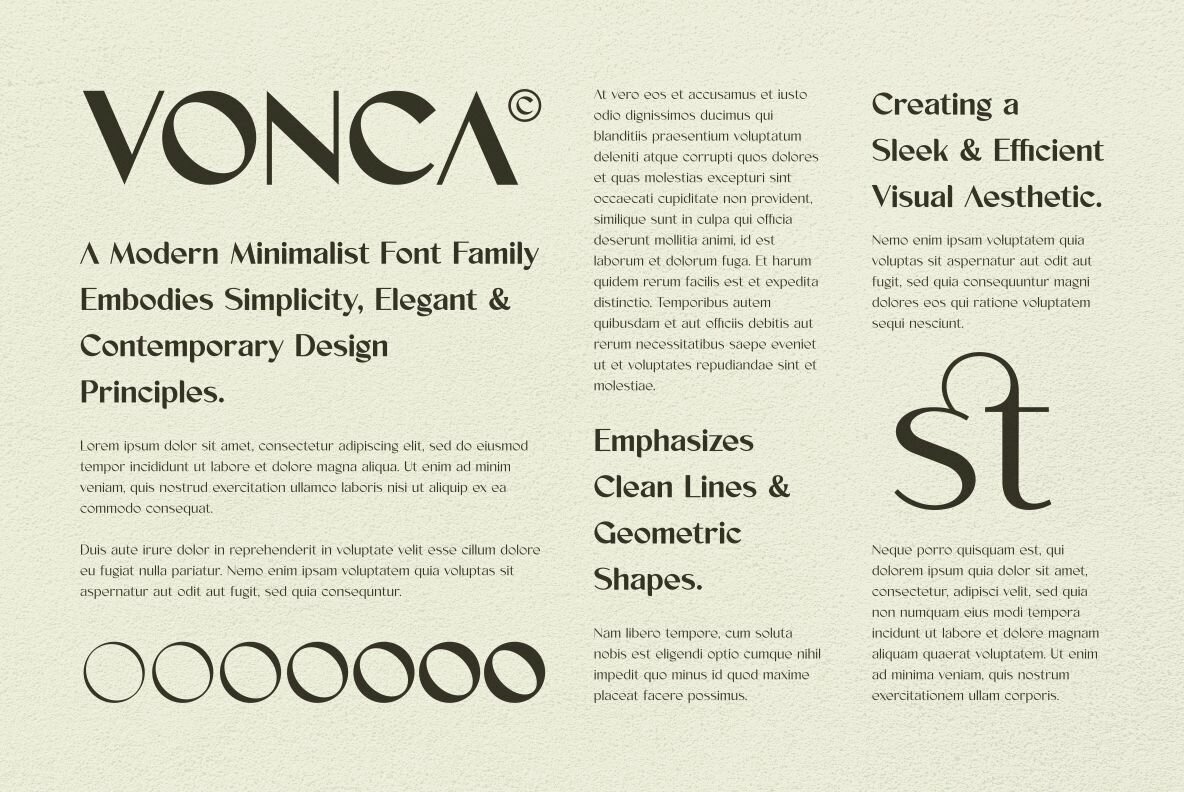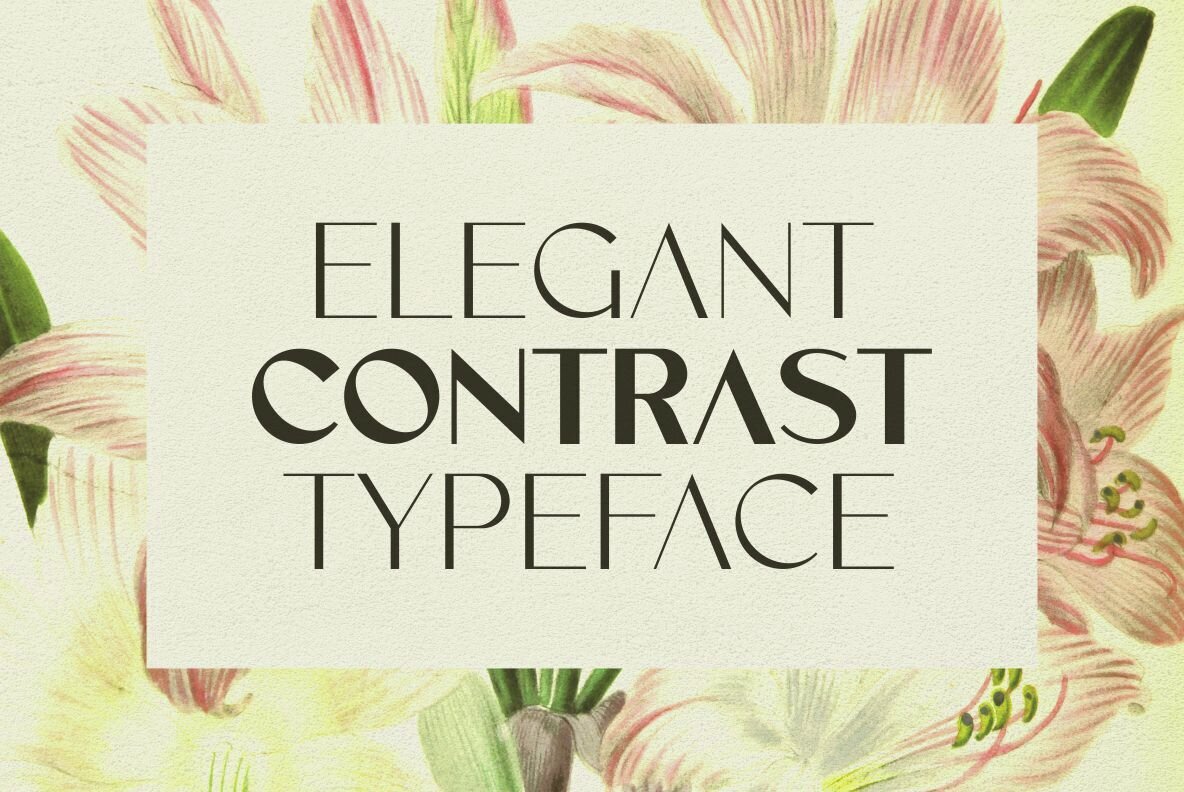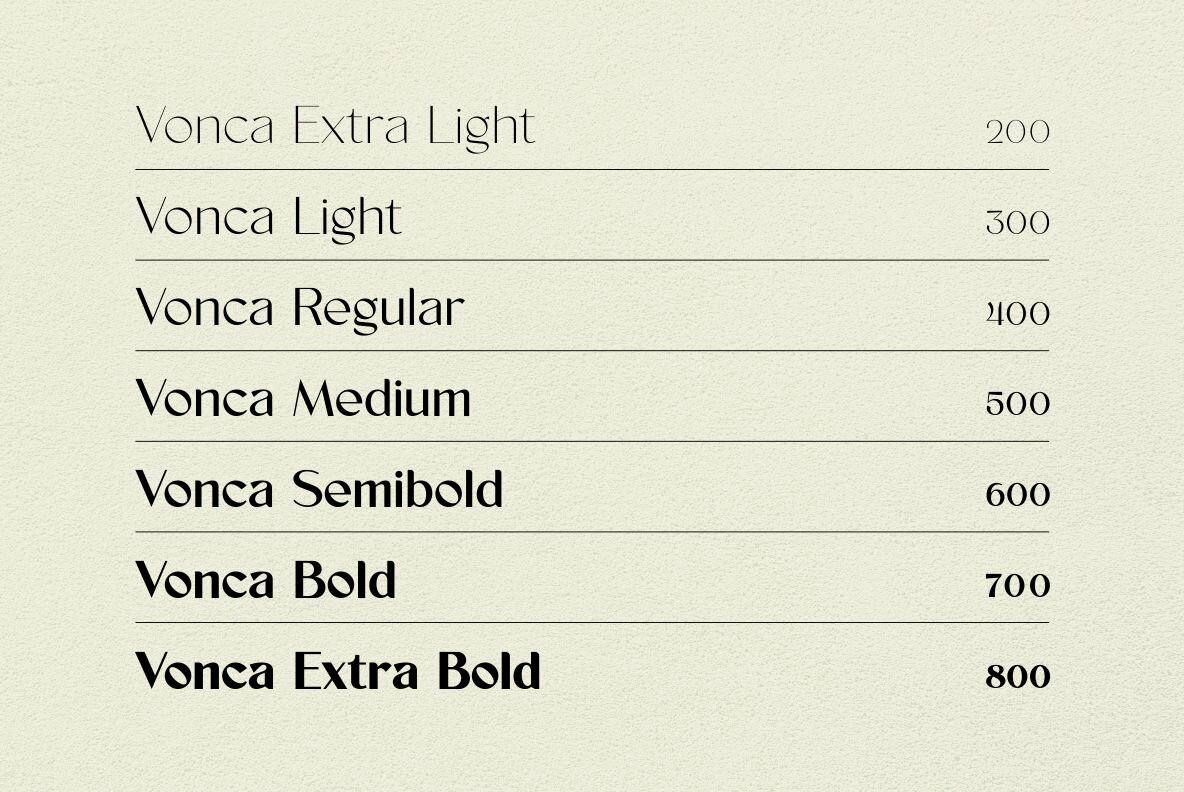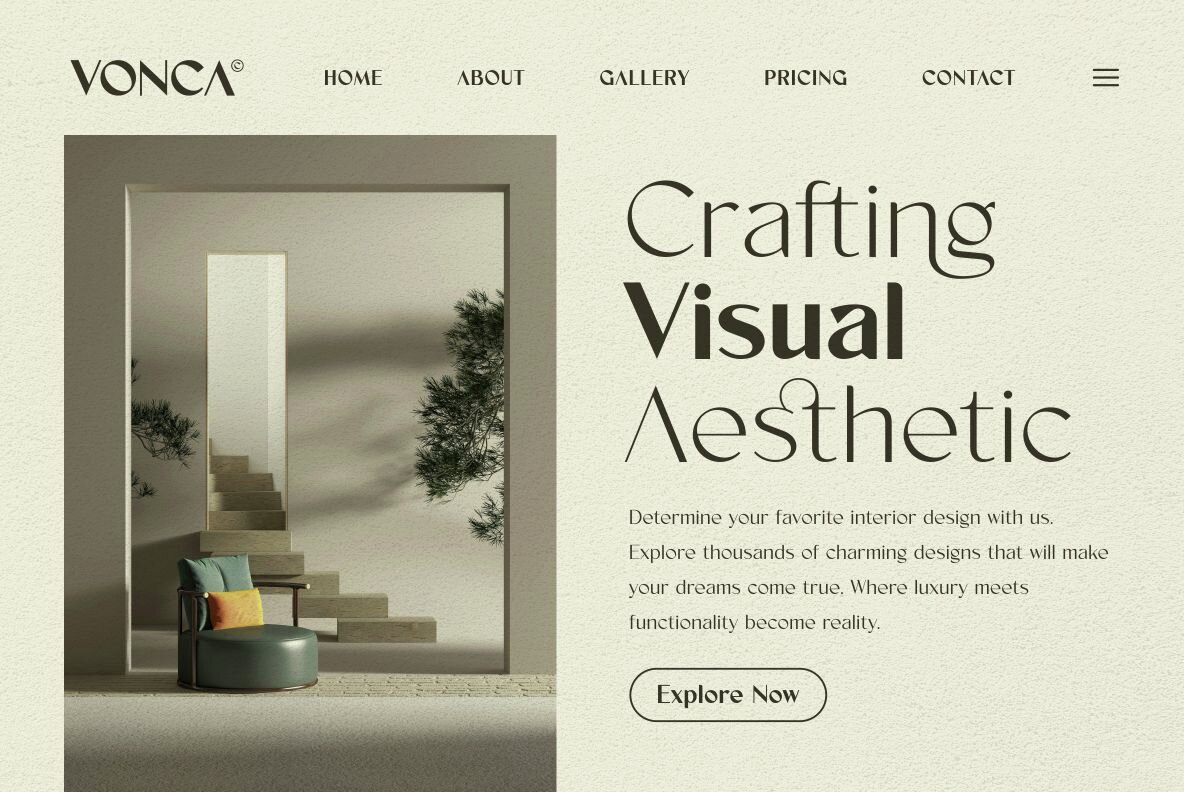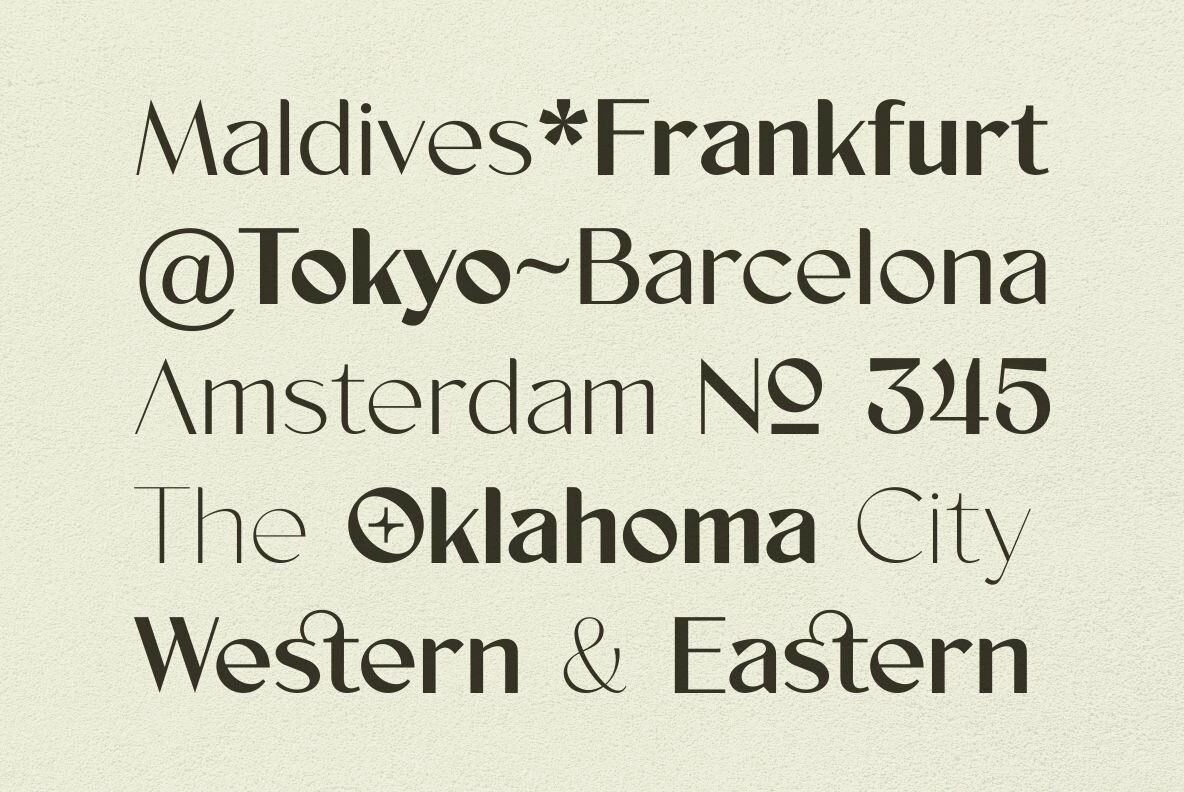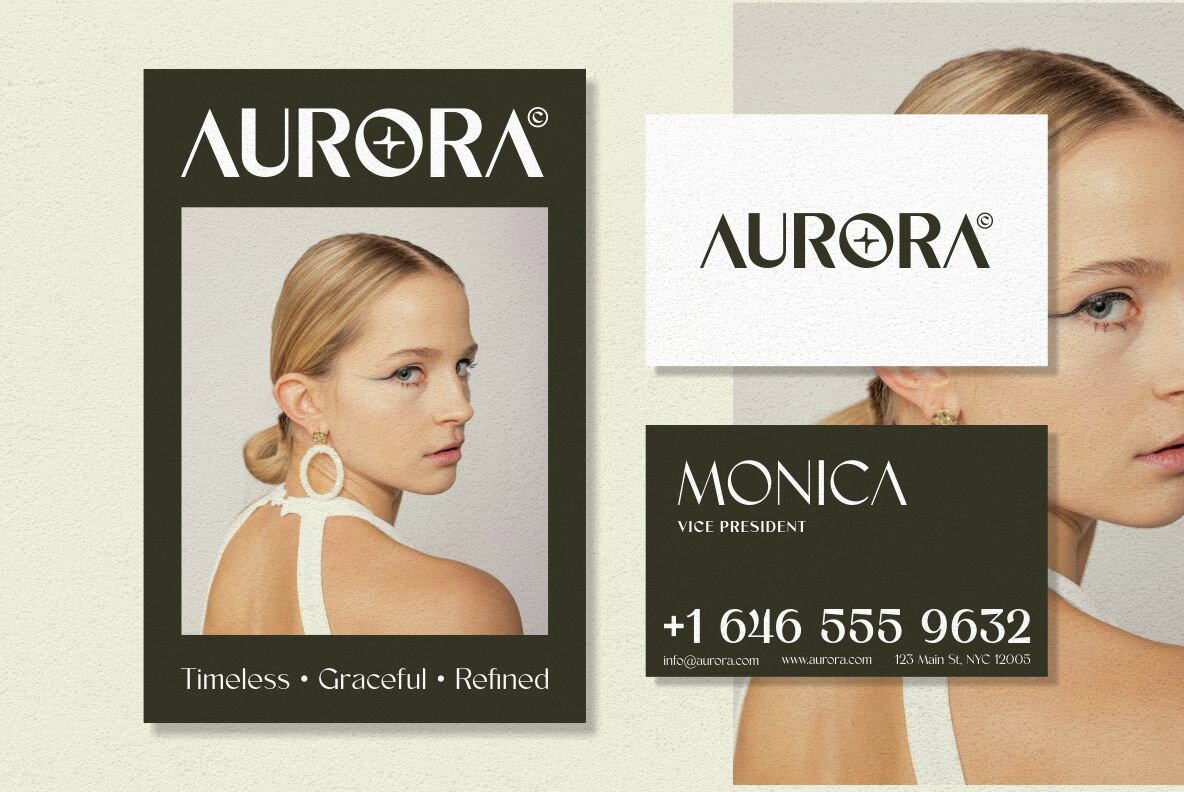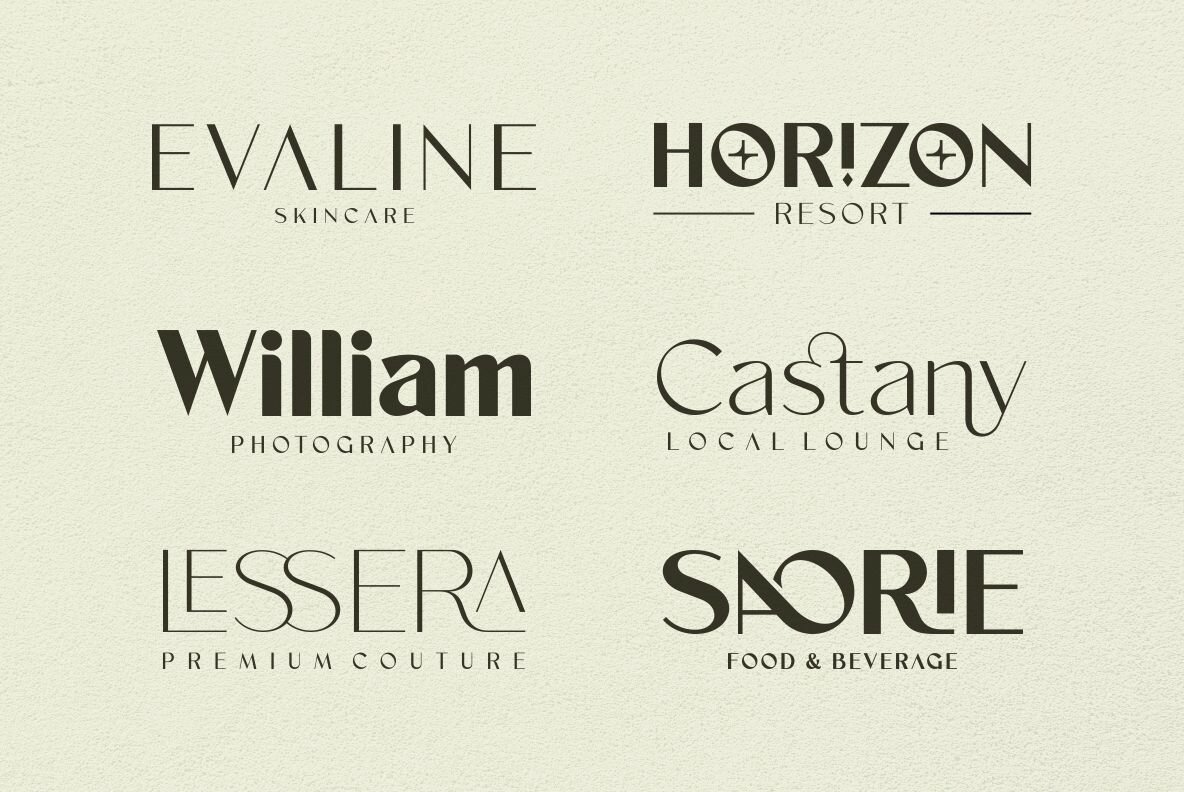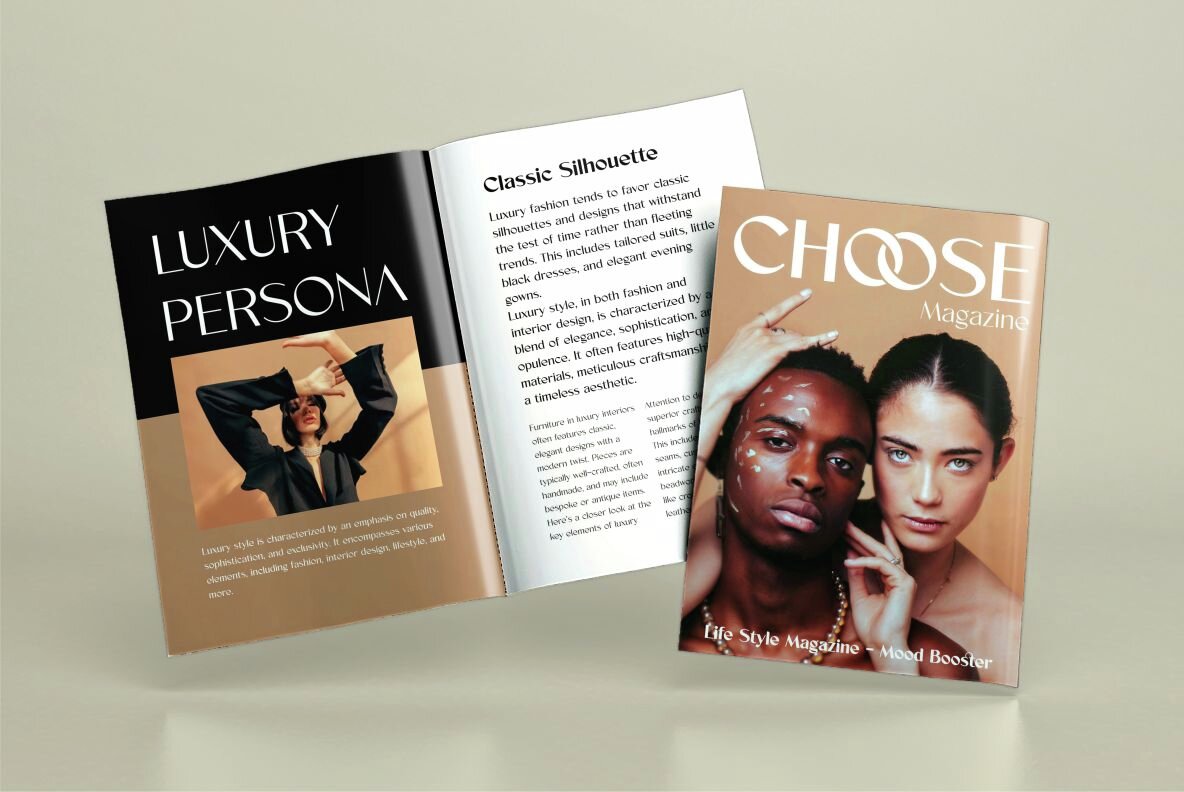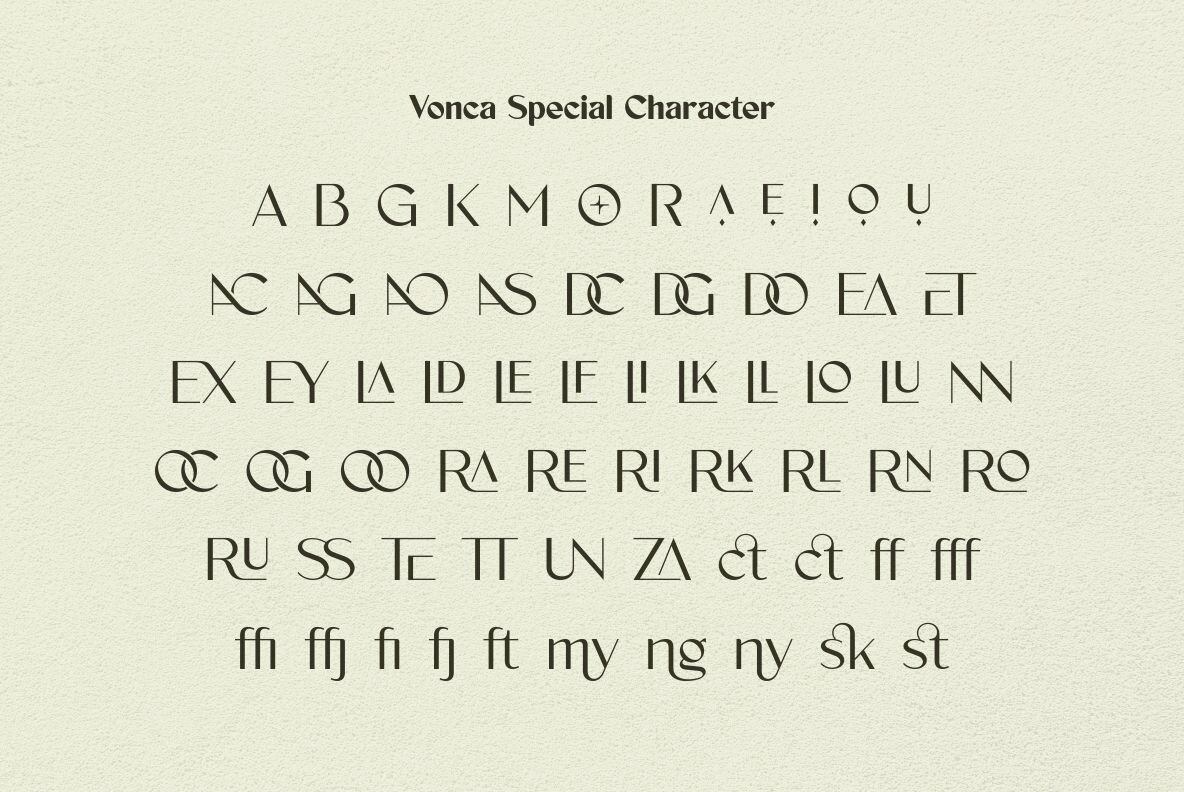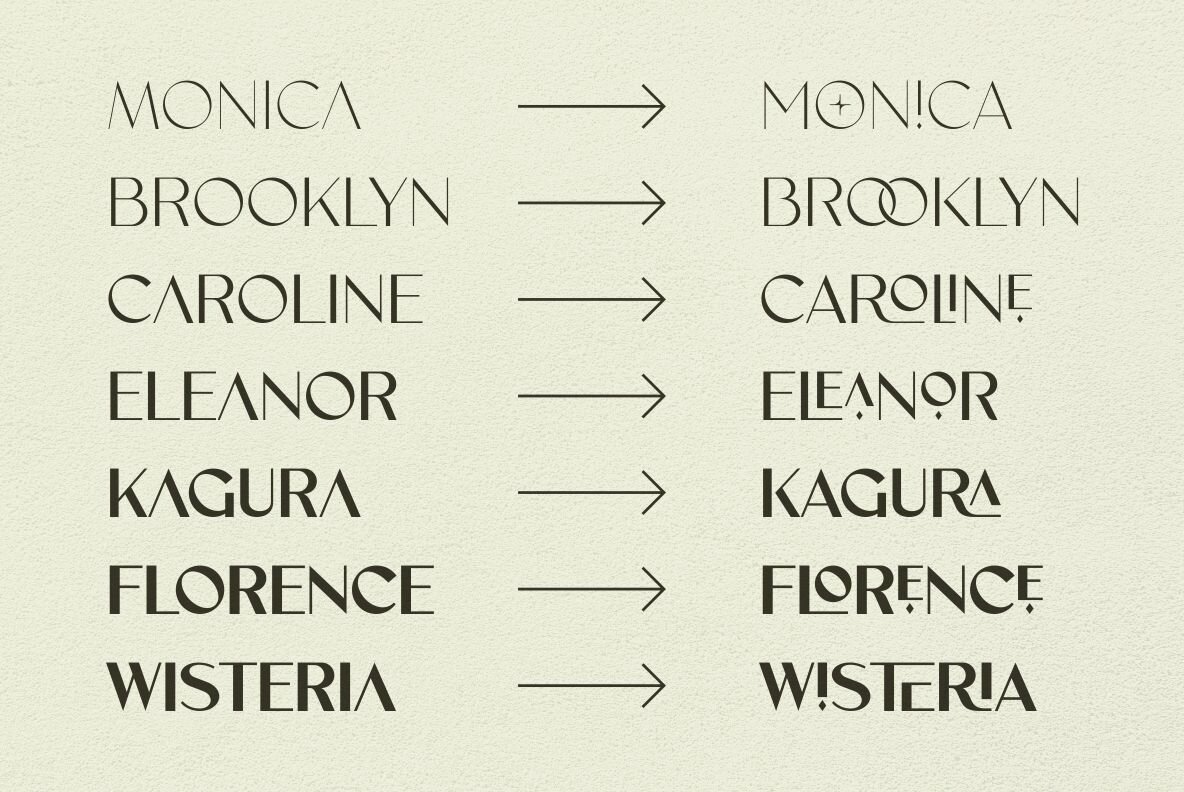
Vonca Font
Vonca is a modern minimalist font family that embodies simplicity, elegance, and contemporary design principles. The font emphasizes clean lines and geometric shapes, creating a sleek visual aesthetic suited for both modern and vintage designs. Ideal for trendy packaging labels, unique logos and branding, poster designs, fashion projects, and more.
- 7 styles
- Standard glyphs
- Stylistic alternates & ligatures
- Symbols & punctuation
- Multiple language support